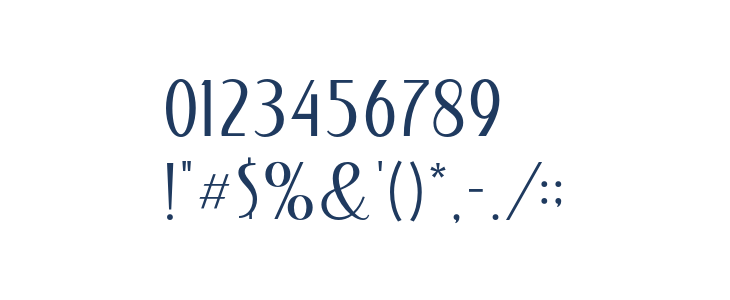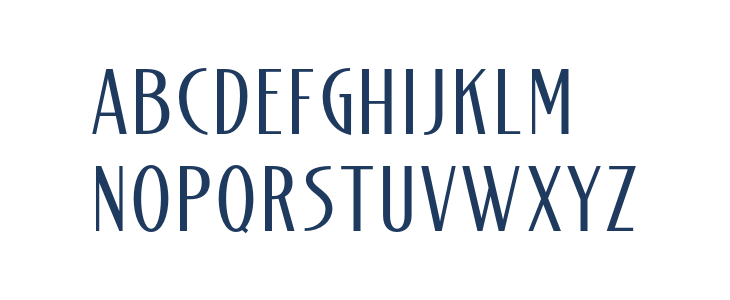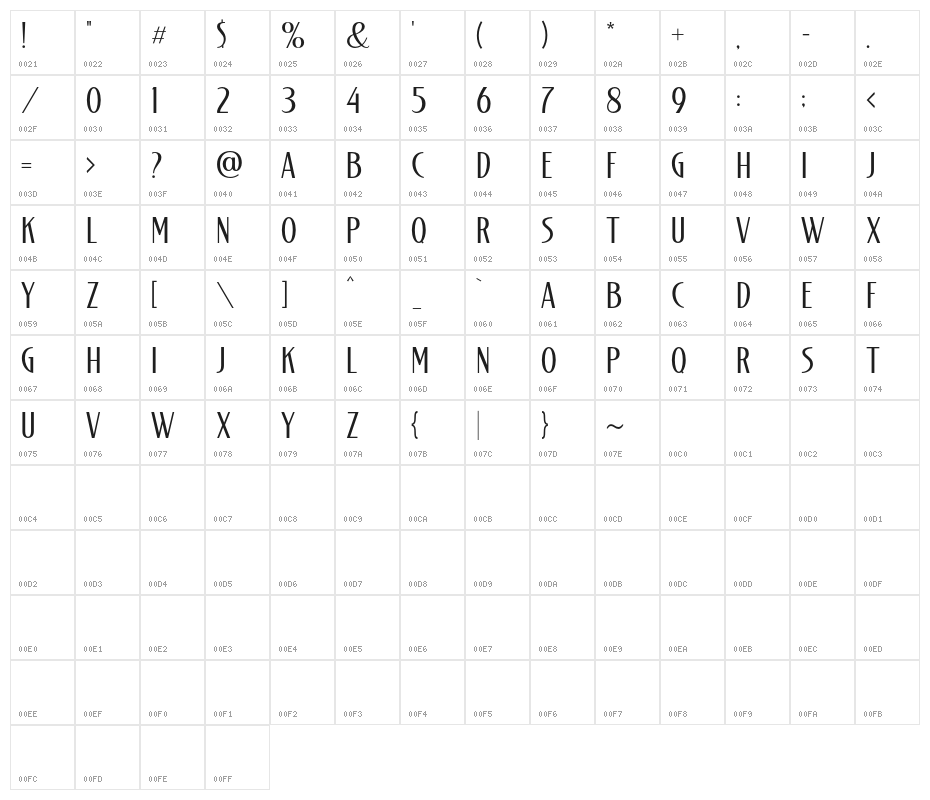
DivineBeautySansDemo Font
DivineBeautySansDemo Description
A tall, elegant sans-serif typeface with condensed letterforms, high contrast between thick and thin strokes, and a refined, art deco-inspired aesthetic. The characters are clean and geometric, with a modern yet vintage feel.
| Overall Style | Modern, Art Deco, Elegant |
| Use Case | Headlines, Logos, Posters, Branding |
| Proposed Projects | Luxury branding, fashion magazines, editorial headlines, posters, invitations, upscale packaging. |